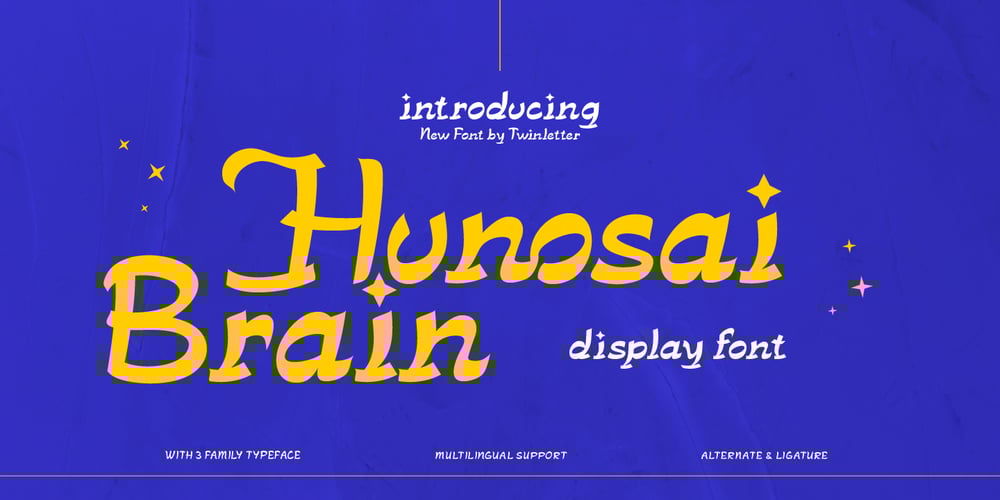
Hunosai Brain Font Family was designed by Rozikan and published by Twinletter. Hunosai Brain contains 3 styles and family package options. With a strong character and unique design, Hunosai Brain is a display font that brings boldness and elegance to your design projects. With pleasing curves and balanced proportions, Hunosai Brain is suitable for titles, headings, or other design elements that require a striking and attractive appearance.Hunosai Brain emphasizes the ability to provide a professional, pleasant, and exclusive impression. With each letter’s clarity and elegance, this font brings luxury and visual appeal to your design projects.Hunosai Brain’s advantage lies in its typographic clarity and striking display elements. Its fun and modern design creates a rugged impression while maintaining elegance.With Hunosai Brain, your design project will be elevated to a higher level. Let each letter be representative of the elegance you desire in your design, creating an unforgettable impression.